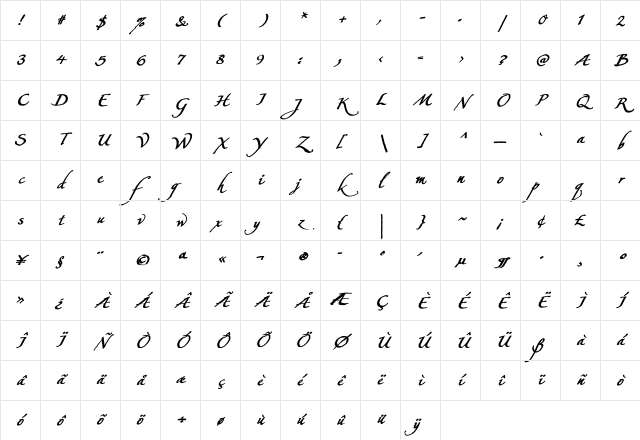
Konstantin Forte Aa Regular Free Font
Konstantin Forte Aa Regular
Foundry: Gert Wiescher, Wiescher-Design, Munich, Germany, www.wiescher-design.de
Design Context for Konstantin Forte Aa
Konstantin Forte Aa is a composed and adaptable typeface that performs quietly and consistently across a wide range of design contexts.
Who designed the Konstantin Forte Aa Regular font?
This font was published by Gert Wiescher, Wiescher-Design, Munich, Germany, www.wiescher-design.de. Check the technical specs section for copyright and designer details.